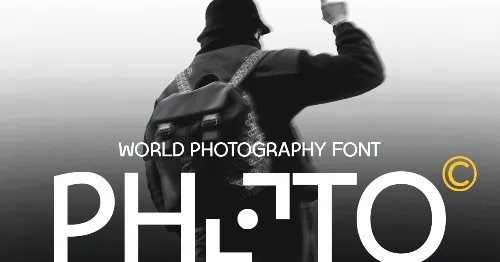
Envato - Photo - World Photography Font - Dmy5Lfs | 214.5 KB Elevate your visual storytelling with World Photography Font, a stunning digital asset designed to captivate audiences worldwide. Crafted with precision and attention to detail, this font is perfect for photographers, designers, and creatives seeking to convey emotion and depth through typography. Its unique blend of elegance and sophistication makes it an ideal choice for high-end branding, advertising, and editorial projects.
World Photography Font features a range of distinctive styles and characters that will add a touch of sophistication to any visual narrative. With its clean lines, subtle nuances, and expertly crafted letterforms, this font is sure to leave a lasting impression on your audience. Whether you're looking to create a sense of drama, convey a message of elegance, or simply add some visual interest to your designs, World Photography Font has got you covered.